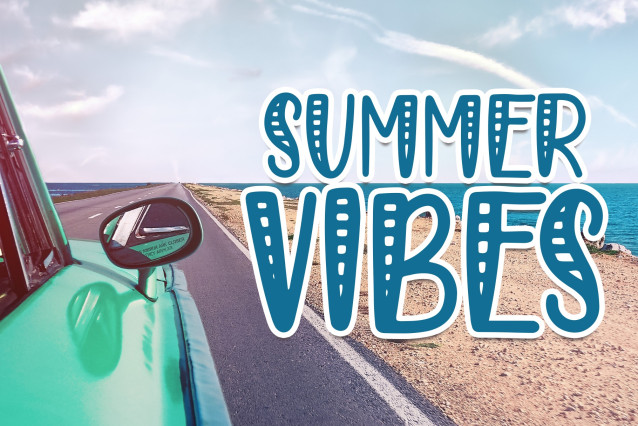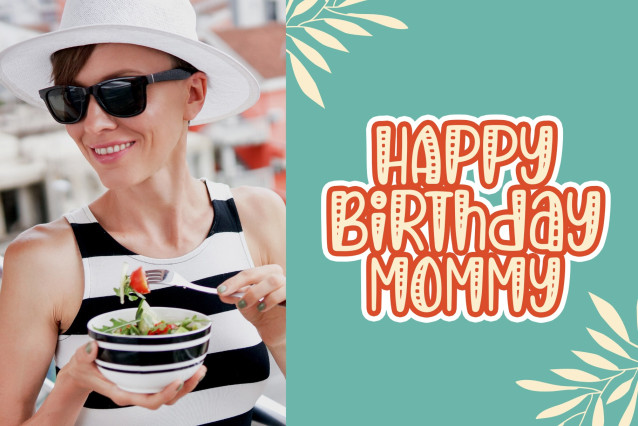
Summer Scent Font
Summer Scent Font is a breezy handwritten font that captures the light, carefree feeling of sunny days and warm weather. With its soft curves and organic letterforms, this font is ideal for summer-themed projects, greeting cards, packaging, and playful branding. It adds a personal and joyful touch to any design that calls for warmth and whimsy.